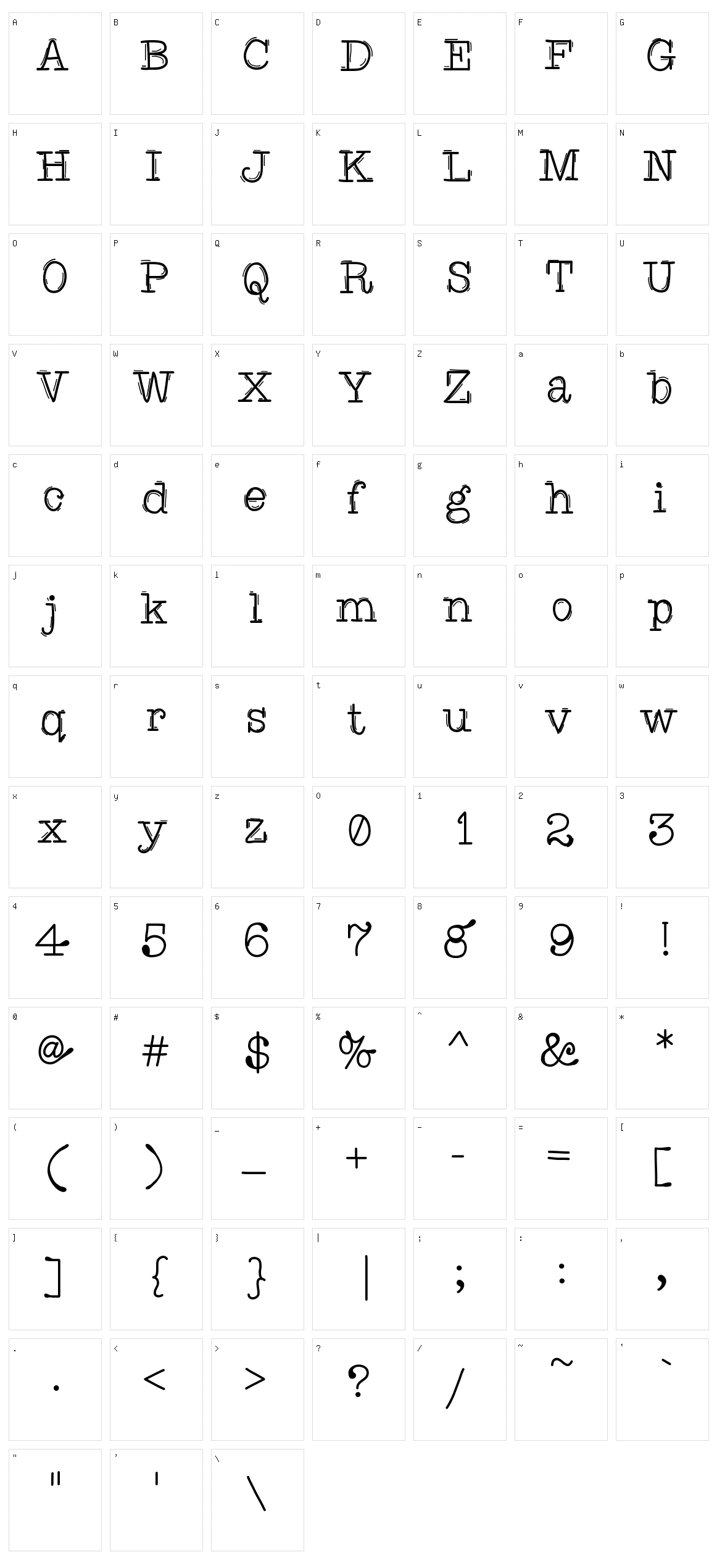
The free font CareToDance is carefully designed by Amy Louise Bandy, showcasing a thoughtful balance of creativity and usability and falls under the Cartoon font style. When you download the ZIP file, it contains only 22.24 KB of font files, making it lightweight and quick to download. Please review the license details below to understand permitted usage and distribution rights. If license information is not available, we recommend using this font for personal projects only or contacting the author directly for commercial usage permissions.